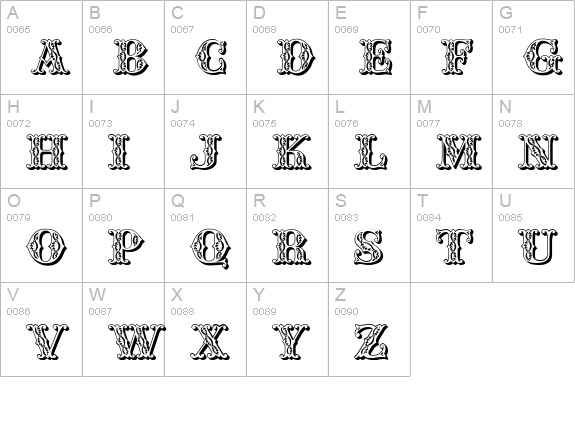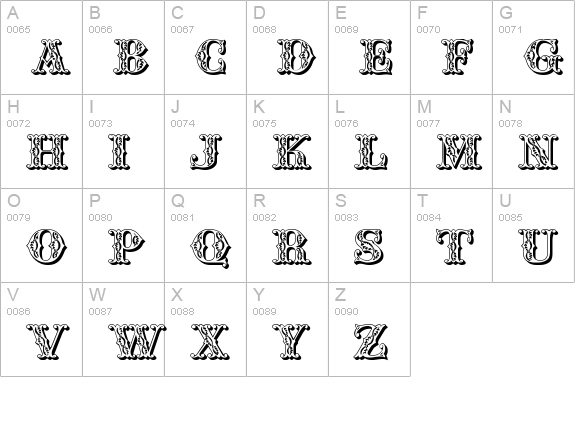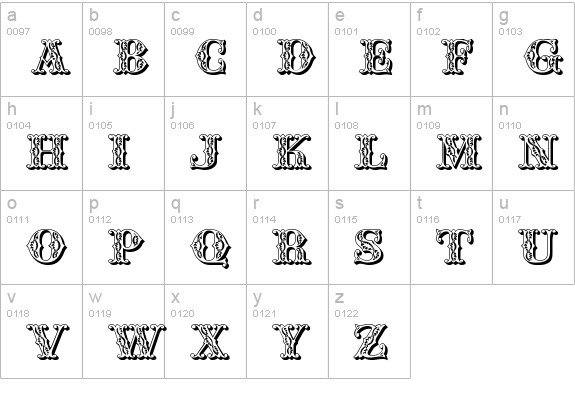
JFSummerFair Font Details
Introducing JFSummerFair, a breathtakingly beautiful font that embodies the essence of the warm and vibrant season of summer. With its playful curves and elegant strokes, this font captures the carefree and joyful spirit that accompanies long sunny days and endless adventures. JFSummerFair is a versatile typeface that effortlessly combines sophistication with a touch of whimsy. Its unique and eye-catching letterforms are meticulously crafted to create a harmonious balance between elegance and creativity. Whether you're designing invitations for a summer party, creating a logo for a beachside resort, or simply adding a touch of summer to your personal projects, JFSummerFair is the perfect choice to bring your designs to life. What's even better is that JFSummerFair is available for free! You read that right - this remarkable font can be yours without spending a dime. Simply head over to FontsMarket.com and download this gem to elevate your designs to a whole new level. Embrace the freedom to create stunning visuals without breaking the bank. So why wait? Let JFSummerFair be your go-to font for all your summer-inspired design needs. Whether you're a professional designer, a creative enthusiast, or simply someone who appreciates the beauty of typography, this font will captivate your imagination and add a touch of summer magic to every project. Download JFSummerFair today and let your creativity soar.